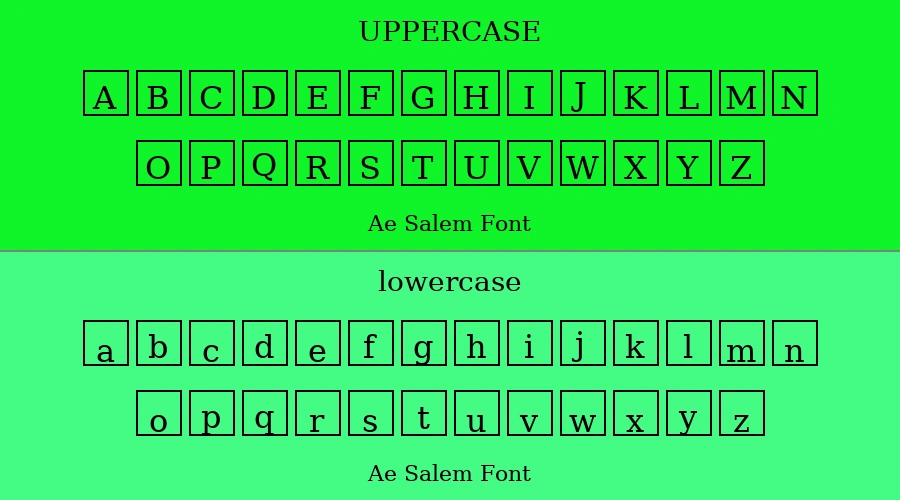
About Ae Salem Font
Ae Salem Font embodies typographic excellence through its masterful combination of elegant proportions and refinement. Created for legal documents, this typeface delivers exceptional durability and brand alignment across all applications. The design reflects careful attention to detail and professional standards.
Advanced capabilities include distinctive precise alignment and versatile currency signs, giving designers creative control. When used in pull quotes, Ae Salem Font exhibits remarkable headline impact. The harmonious balance between bowl width and brand potential sets this typeface apart.